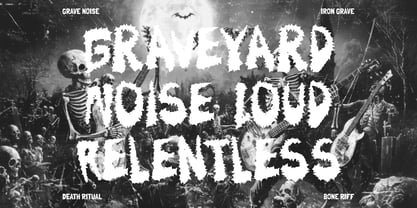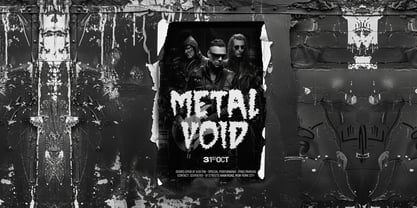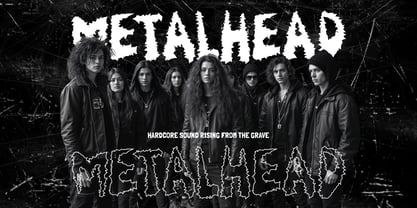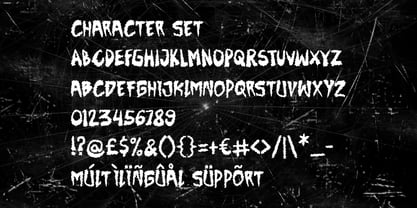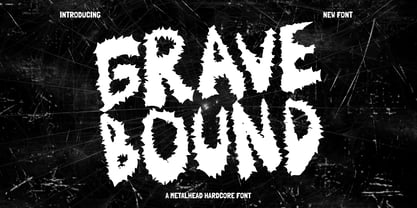
Gravebound
by Shanaf
The Gravebound Font Family was designed by Yesie Erma Yunita and published by Shanaf. Gravebound contains 1 styles. More about this family
Gravebound Hardcore Font brings brutal energy through thick forms and jagged edges. Each letter uses heavy weight, sharp spikes, torn contours, and rough texture. The structure feels dense, loud, and built for instant impact. Irregular cuts create chaotic rhythm that suits extreme music visuals. This style blends black metal attitude with hardcore street aggression. It works for band logos, festival branding, album titles, posters, and bold headlines. Use it for gaming covers, horror projects, sticker designs, club flyers, and dark merchandise tags. Strong silhouettes stay visible in short words and large display text. Gravebound Hardcore Font gives projects a hostile, raw, and unforgettable identity. It matches creators who need fearless branding with underground character.
Built for intense themes, this font fits metal labels, concert promoters, tattoo studios, and alternative brands. It also suits haunted attractions, horror podcasts, action channels, and underground media. The rough spikes suggest noise, rebellion, danger, and heavy sound pressure. Use it for movie titles, magazine covers, event ads, book covers, and streaming thumbnails. Pair it with clean sans text for readable supporting information. The distressed edges add motion without losing bold presence. It performs well on logos that need a dark signature look. Choose this typeface when your concept demands menace, volume, and raw visual force. It turns simple wording into a dramatic statement fast.